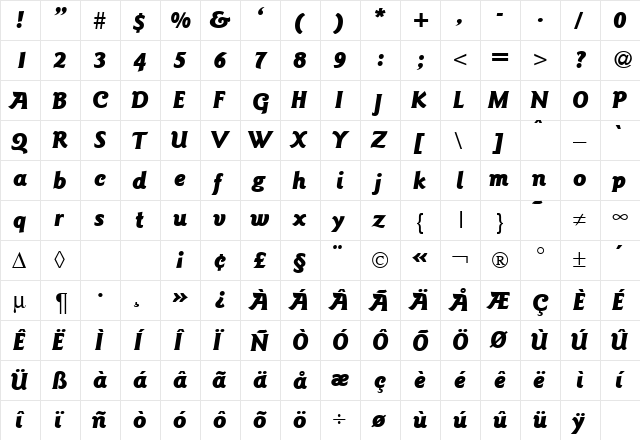
GoudySansTwoBlack RegularItalic Font Preview
GoudySansTwoBlack RegularItalic
Design Context for GoudySansTwoBlack Typeface
GoudySansTwoBlack is a composed and adaptable typeface that performs quietly and consistently across a wide range of design contexts. The dynamic lean of this cut emphasises speed and emphasis in any layout.
Pro Tip: Use GoudySansTwoBlack for emphasis, pull quotes, and subheadings where its slanted energy can add rhythm to the layout.